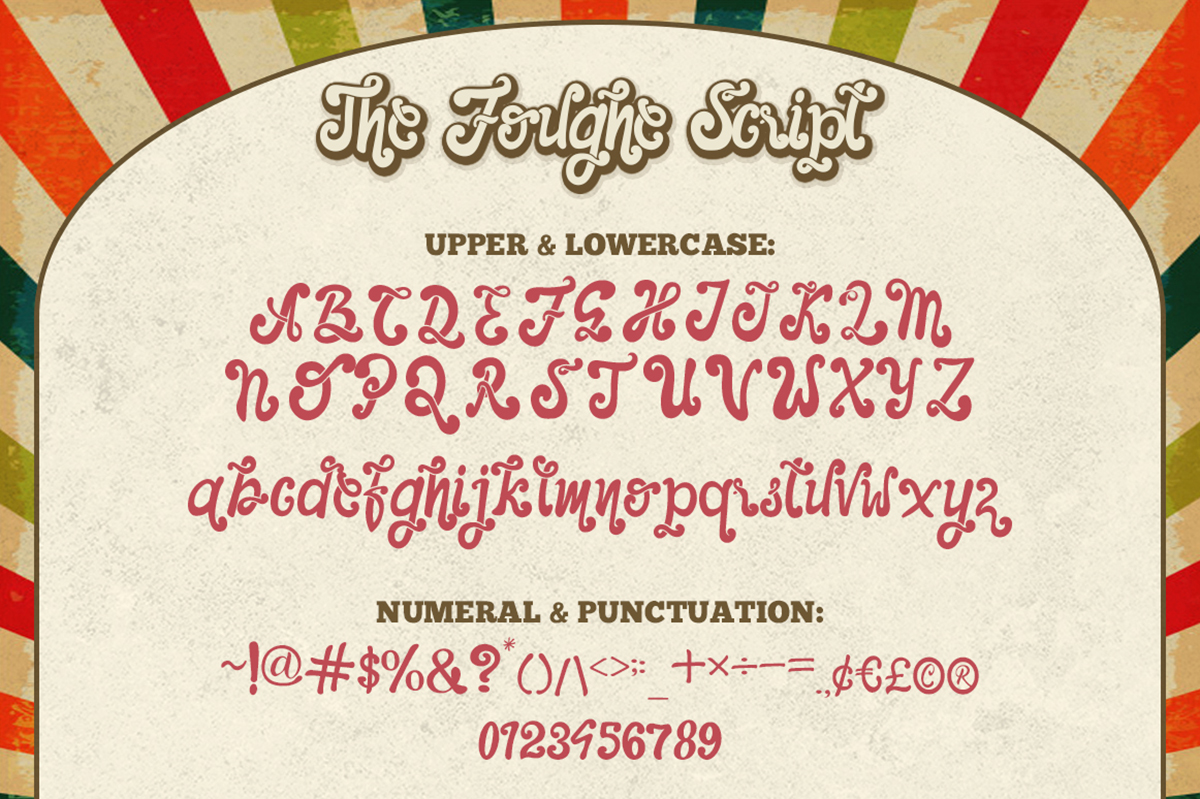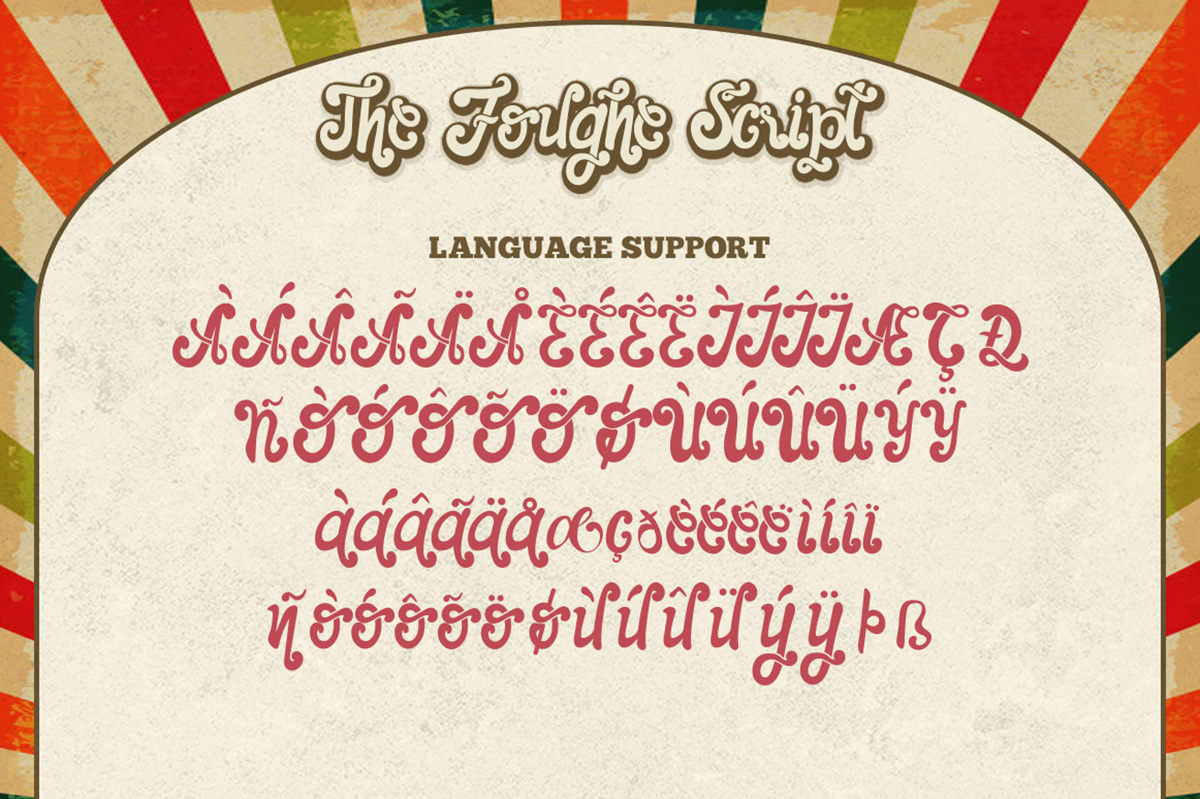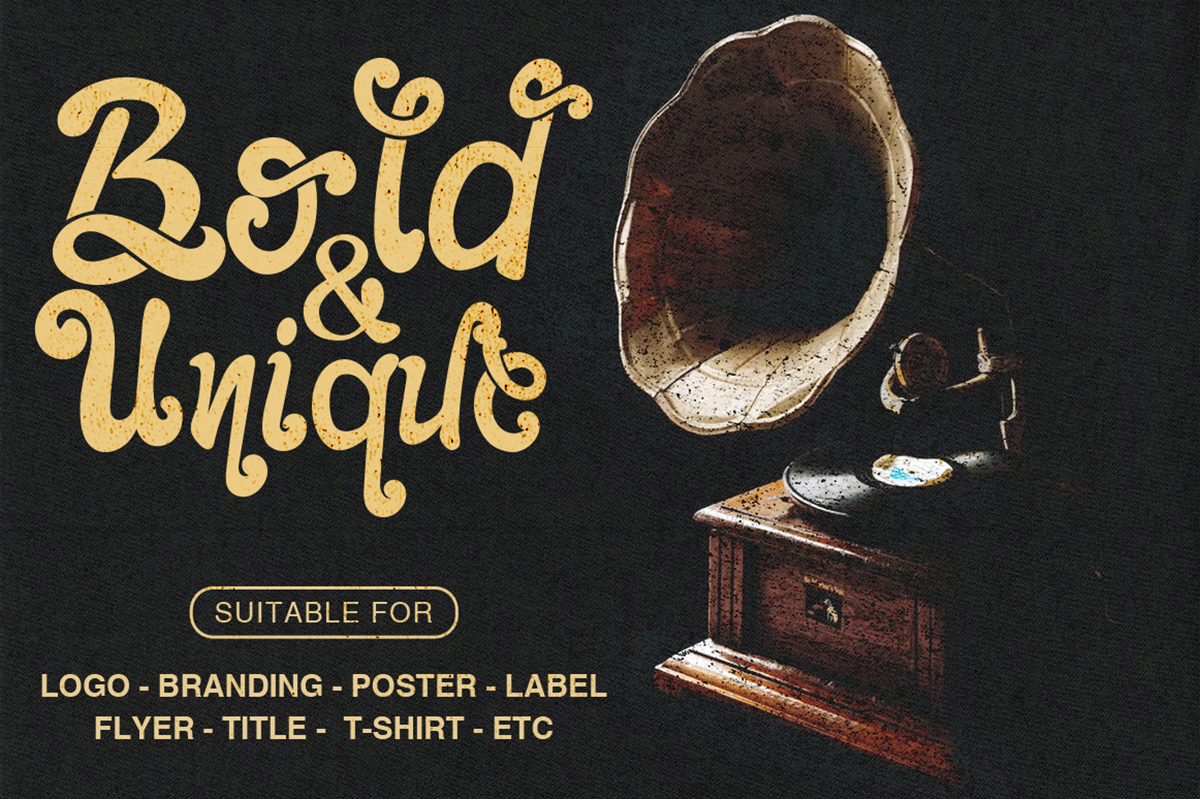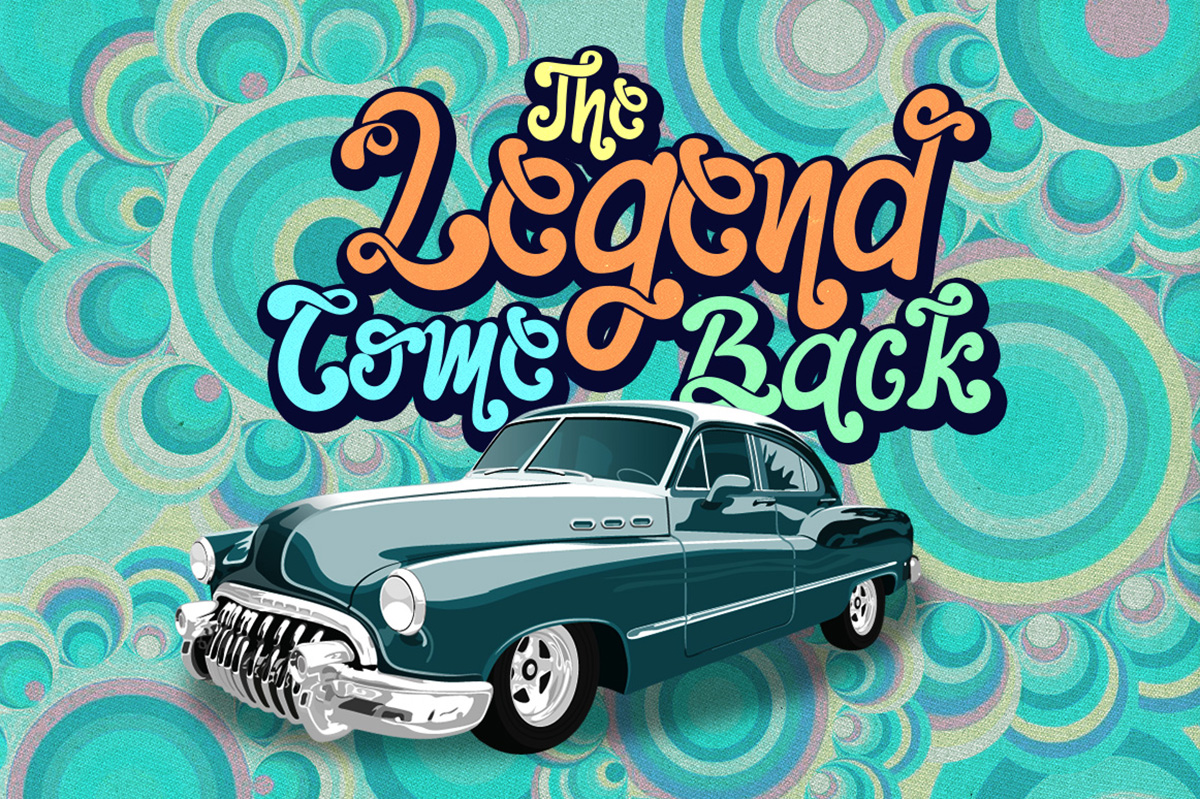
The Foughe Script Free Font
The Foughe Script Free Font is a unique, vintage, and retro font. It was designed with a classic touch which will make your design stand out. The Foughe Script font would be perfect for logos & branding, photography, watermark, social media posts, advertisements, invitation, product designs, label, stationery, wedding designs, product packaging, special events or anything that need a retro and vintage taste. This free typeface was designed by the talented Kotak Kuning. If you like it don’t forget to check out the full version.